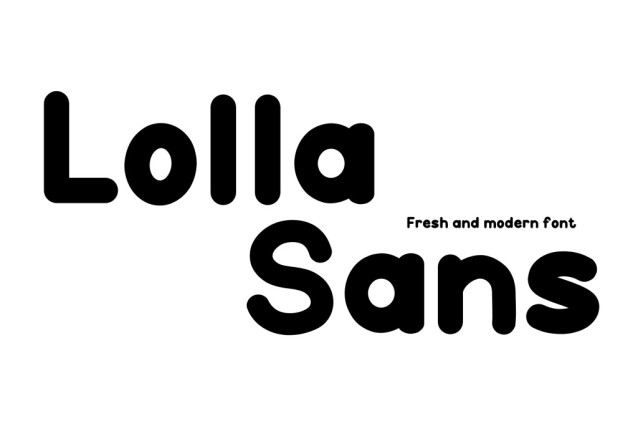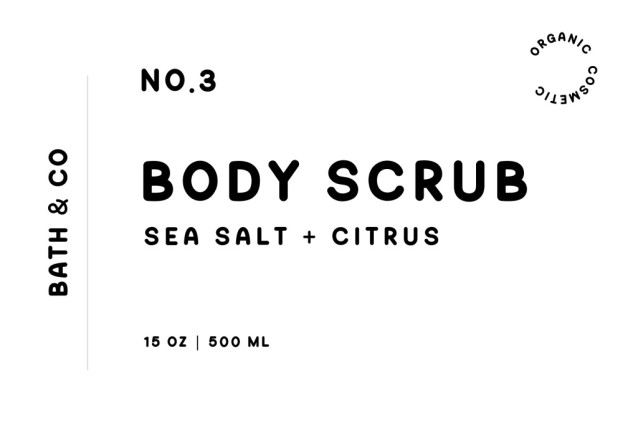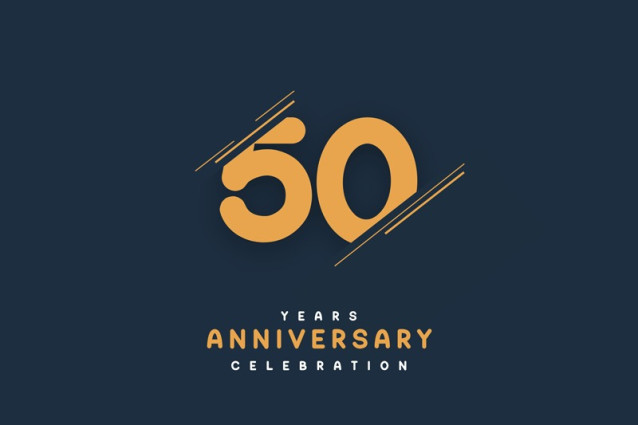
Lolla Sans Font
Lolla Sans Font is a playful and unique handwriting font. It is Cute, Cool, and Cheerful. This font will give the feeling of joy and fun to all your designs and make them easily distinguishable. Have fun with this quirky font!